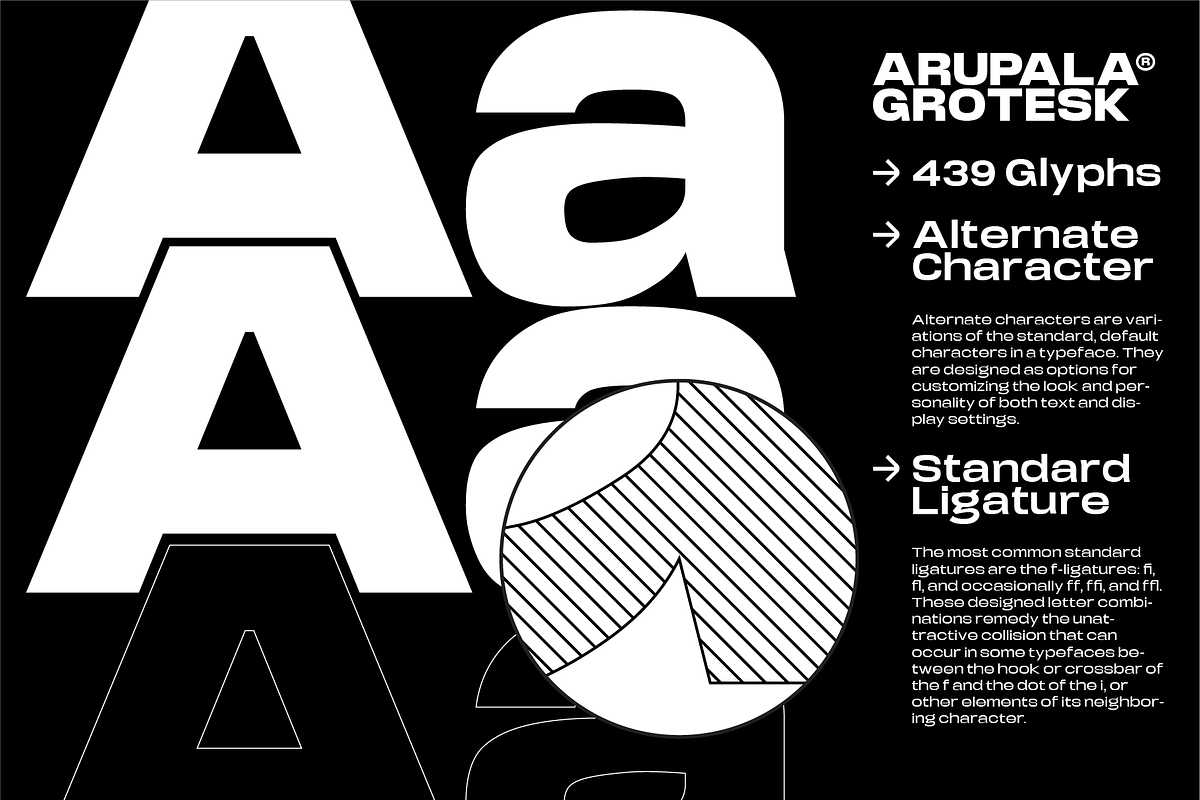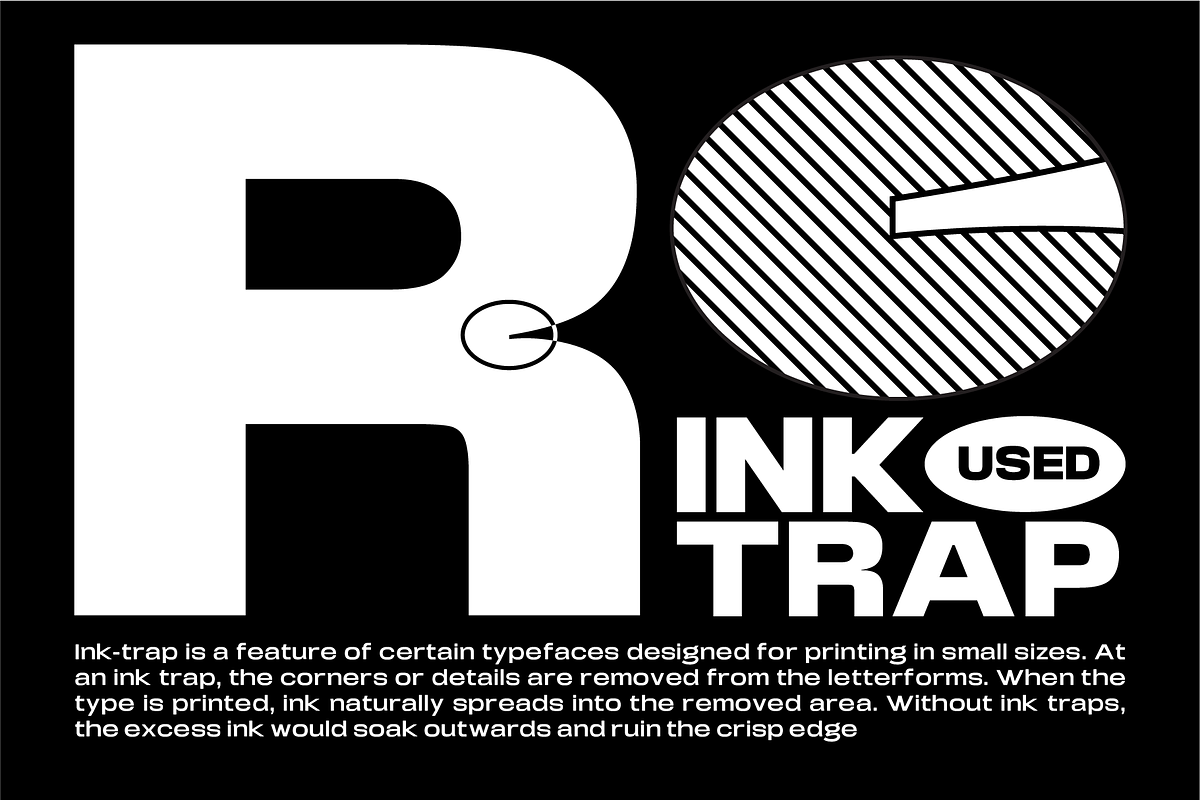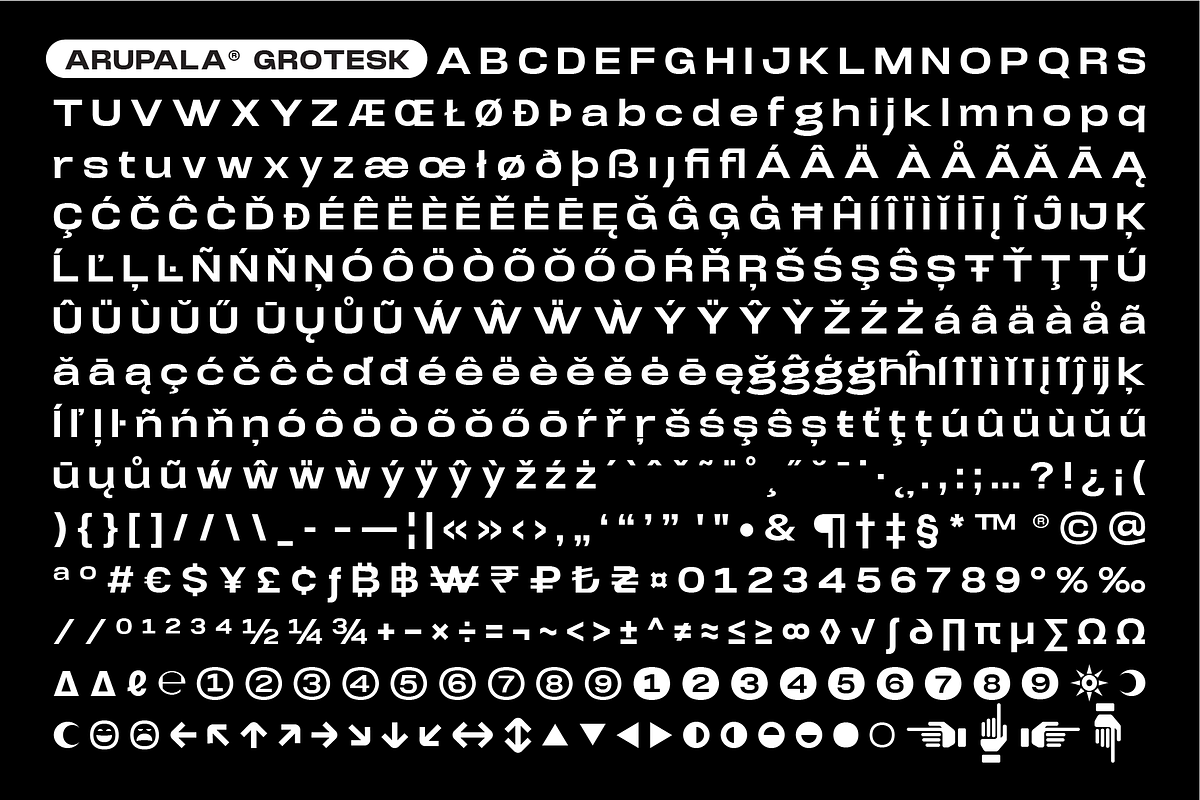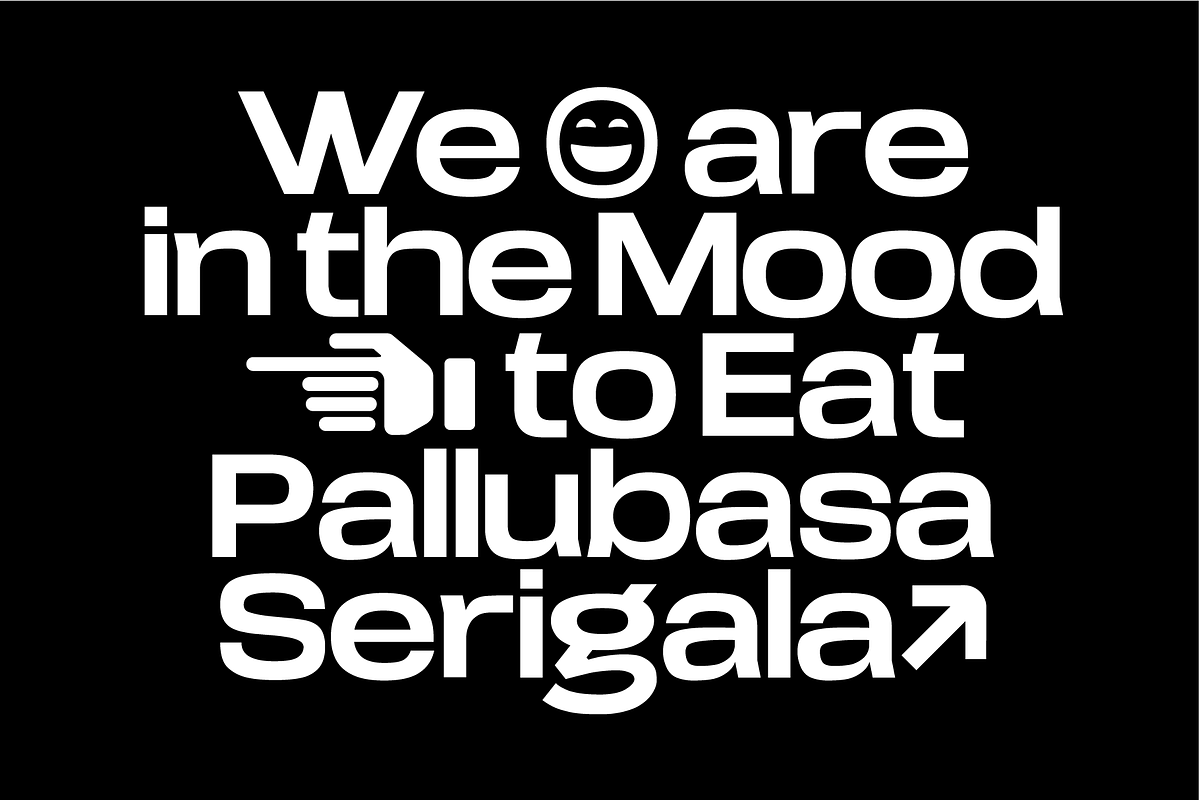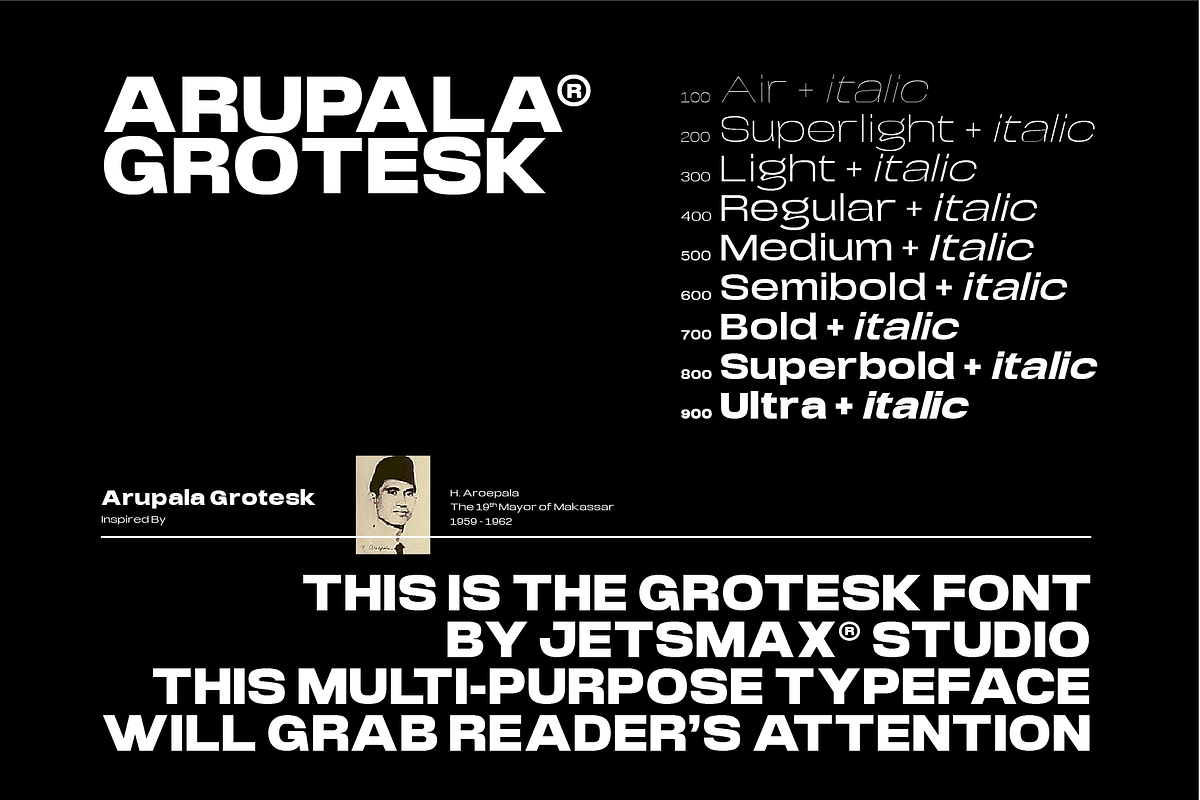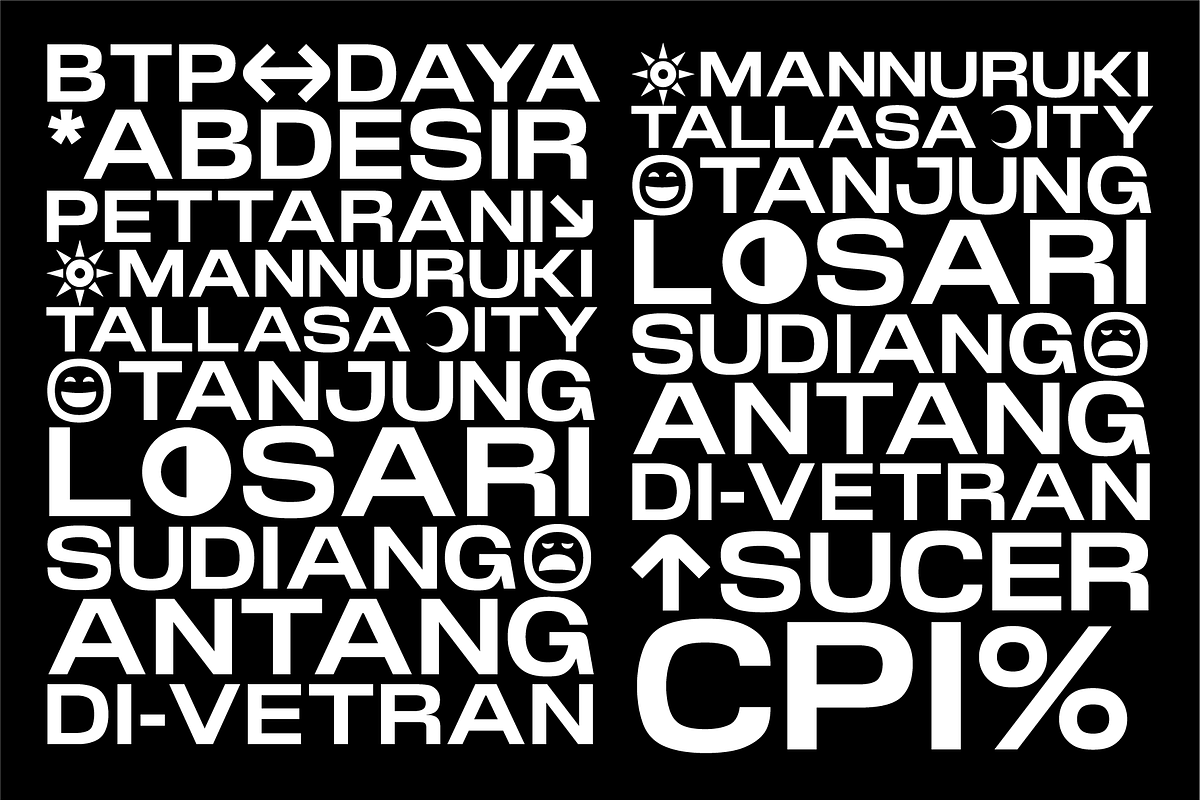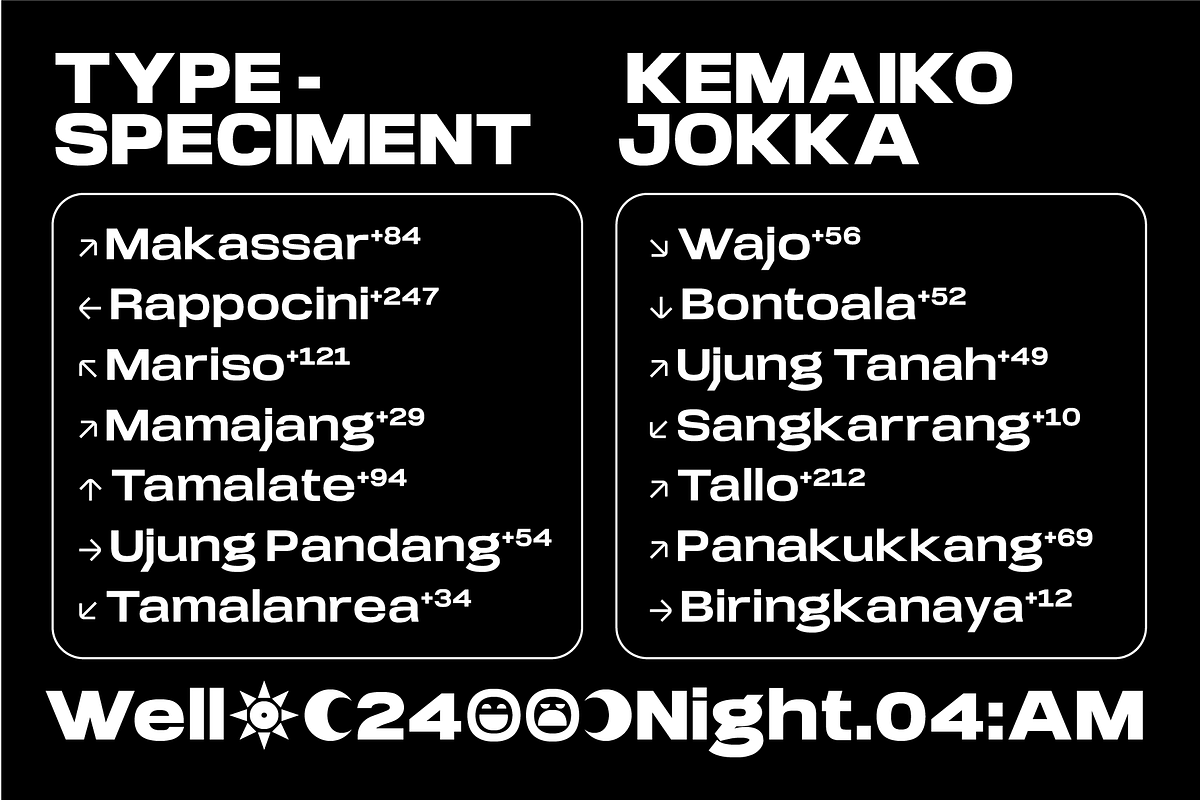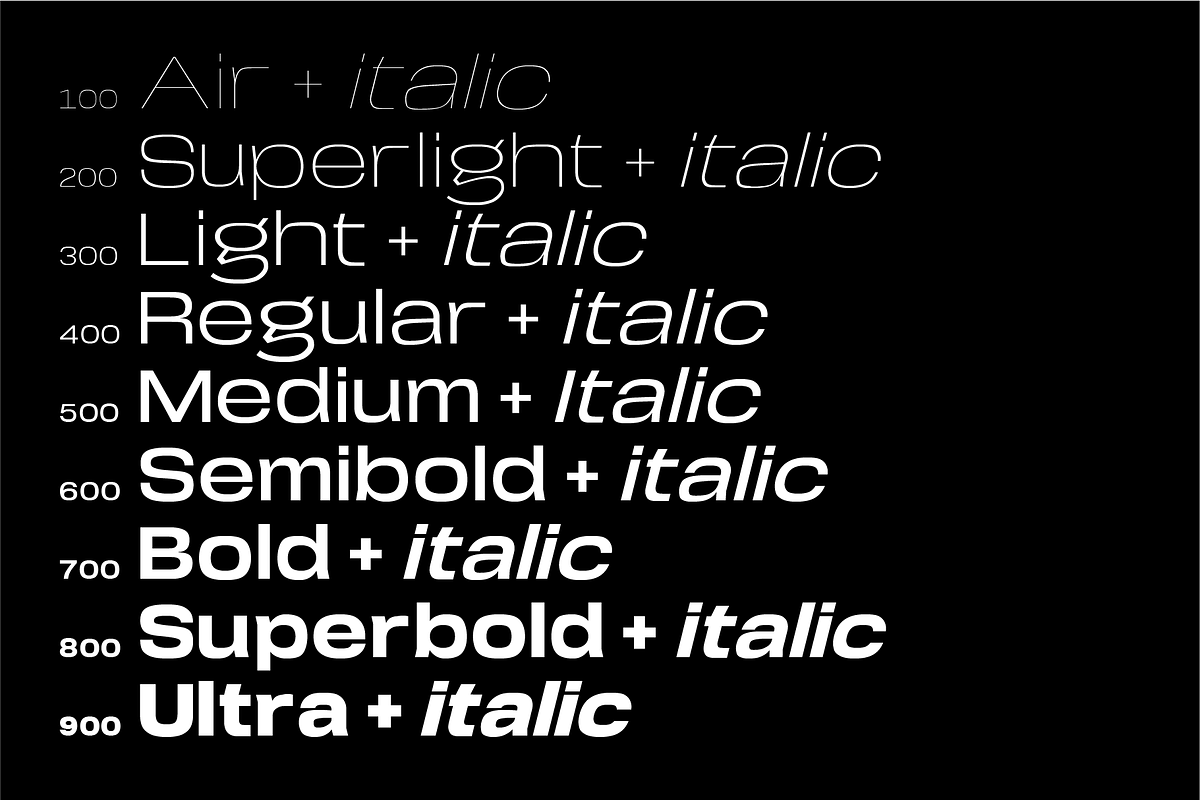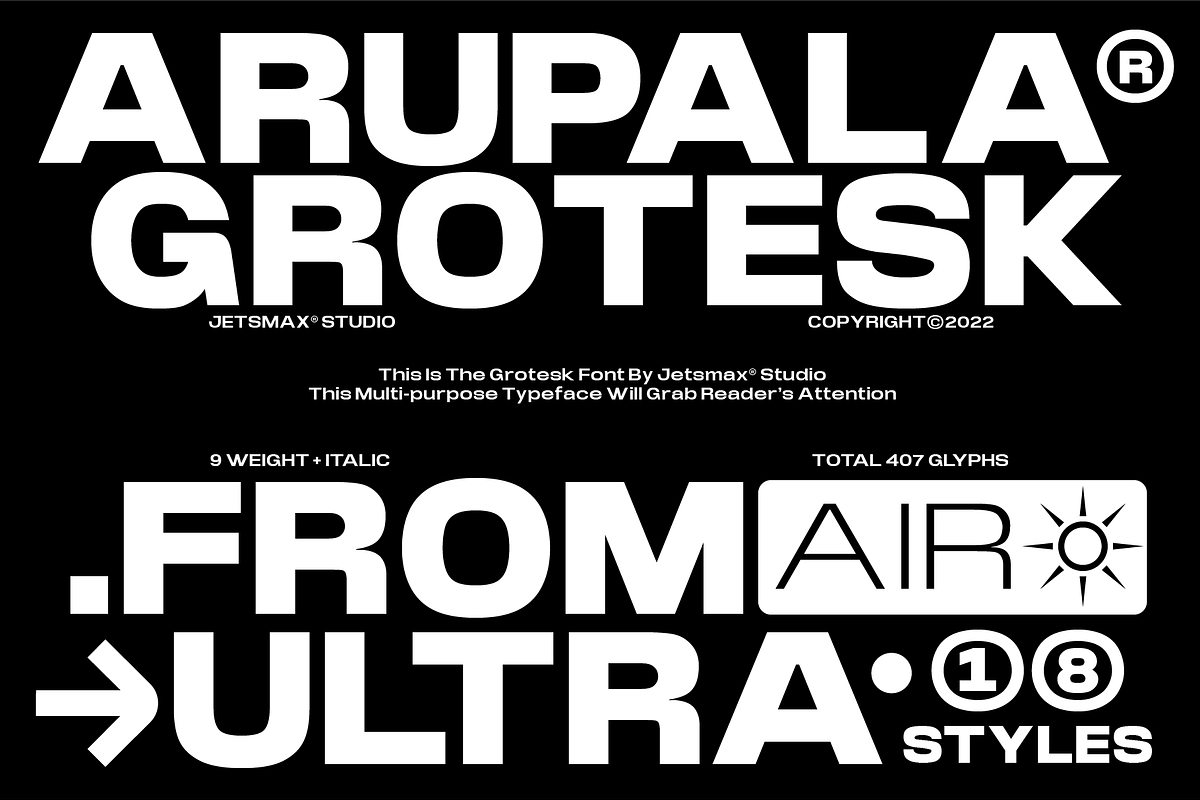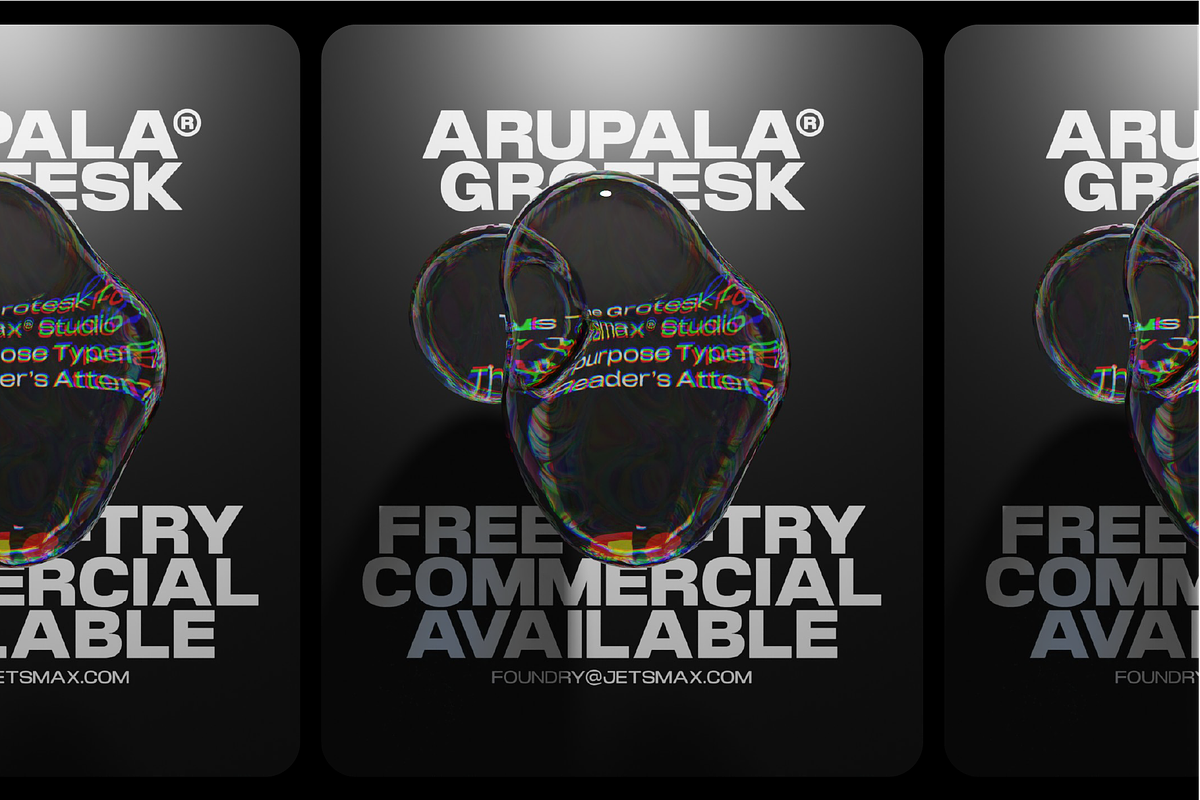
Arupala Grotesk
Arupala® Grotesk is a Grotesk font this versatile typeface will grab readers' Attention. This font was inspired by a character named H. Aroepala. This font is suitable for both formal and informal events and is also suitable for various types of print and digital media.
- Alternate Character, Fraction, Stylistic Alternate, Standard Ligature & Unique